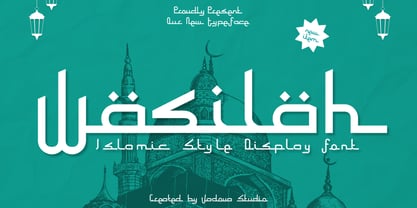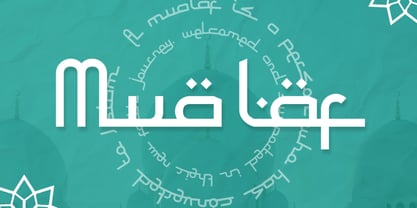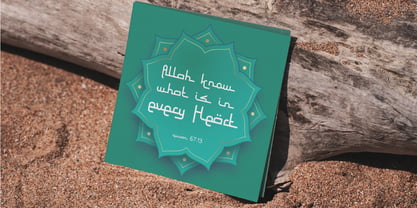
Wasilah
by Vadova Std
The Wasilah Font Family was designed by and published by Vadova Std. Wasilah contains 1 styles. More about this family
Elevate your designs with Wasilah Islamic Font, a font perfect for adding elegance and style to your projects. Whether it’s for quotes, logotypes, magazine headers, or more, this versatile typeface ensures your text stands out beautifully.
• Uppercase & Lowercase Character